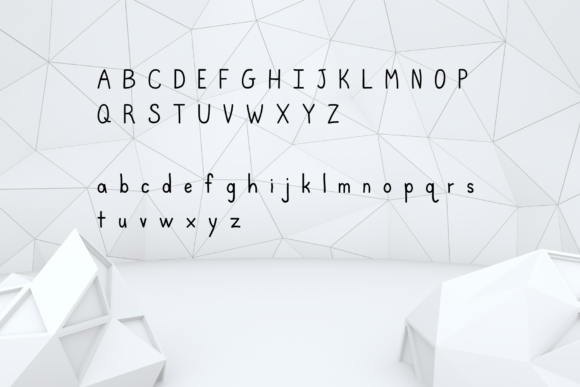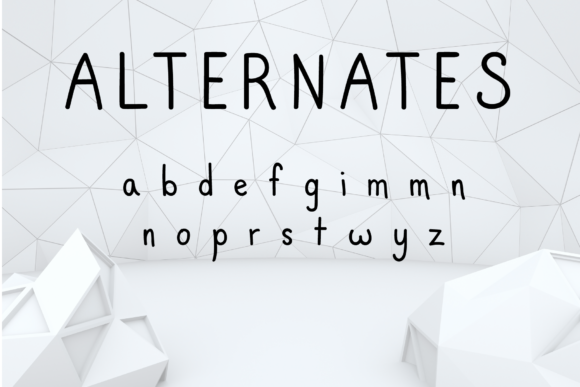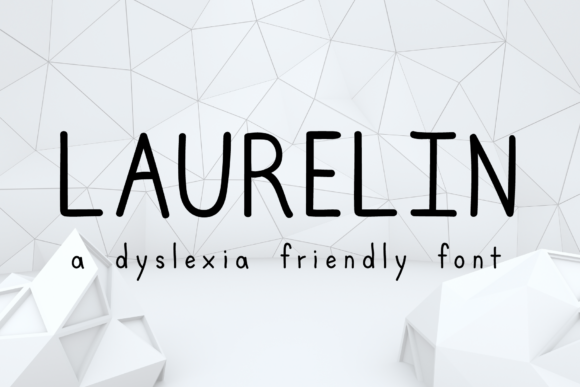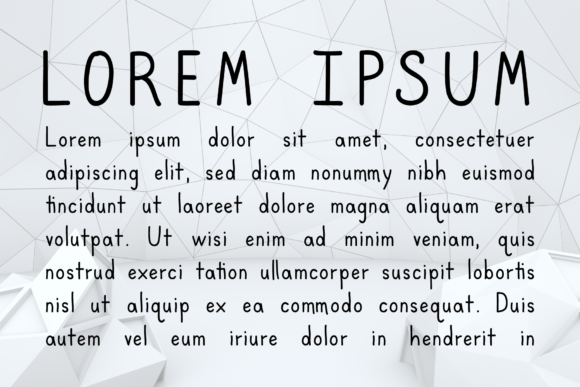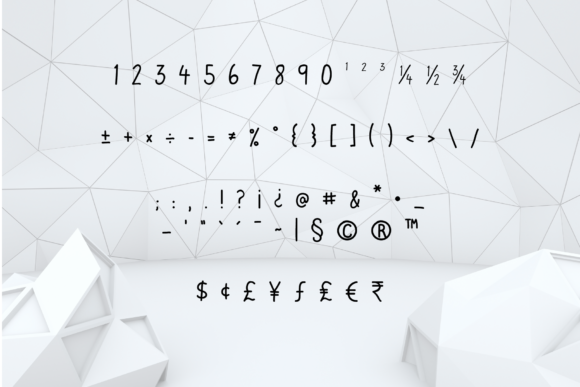
Sans Serif Fonts Laurelin Font 0 160 FacebookTwitterPinterestWhatsApp Laurelin Font 1 of 6 About Laurelin Font Laurelin is a simple and approachable sans serif font with a casual feel. Use it to add a touch of simplicity to any design idea! DOWNLOAD NOW